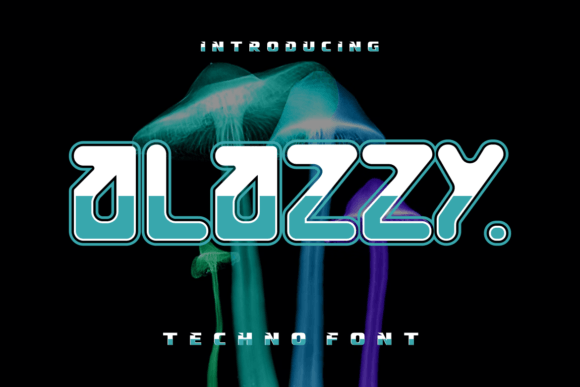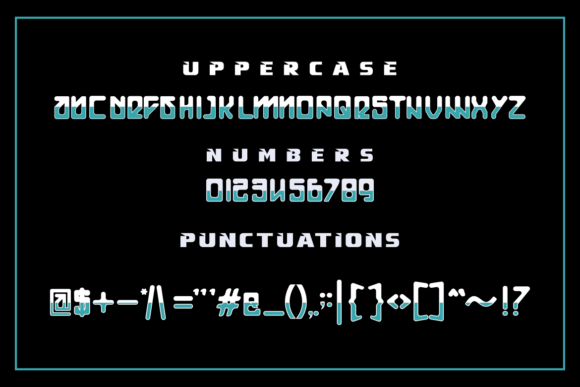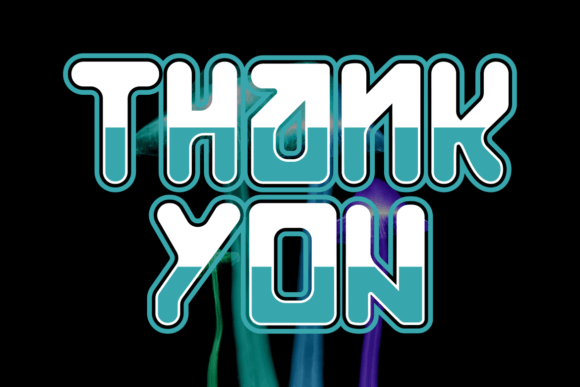
Have you ever found yourself staring at a blank page, trying to bring a design concept to life? The cursor blinks, and the words won’t come. You’re not alone. It’s a moment we’ve all experienced as creatives. But then, something magical happens – you stumble upon the perfect font. For many designers, that font is the Alazzy Font, a modern display font that exudes elegance and sophistication.
| 👤 Author | prayoga_std |
The Alazzy Font is more than just a pretty face; it’s a versatile tool that can elevate any project from ordinary to extraordinary. Whether you’re crafting a signature, designing stationery, or creating a logo, this font is sure to impress. Its value lies in its ability to add a touch of class and refinement to any design, making it a valuable addition to any designer’s toolkit.
Alazzy Font Key Features
- Font Family: Alazzy Font is a sans-serif font family designed for digital use.
- Size: The font family comes in 6 weights, ranging from Thin (100) to Black (900).
- Resolution: Designed for high-resolution displays, suitable for use at 300 DPI and above.
- Unique Characteristics: Alazzy Font features a unique geometric design with rounded edges and a clean, modern aesthetic.
Designer Review: Alazzy Font
Overall, I think the Alazzy Font has some great qualities, but it also has some limitations that may make it less appealing to certain designers.
- Clean and modern aesthetic: Alazzy Font has a sleek, minimalist design that makes it perfect for modern and tech-related projects.
- High legibility: The font is well-designed for readability, making it great for body text and other large blocks of text.
- Good for digital use: Alazzy Font is optimized for digital use, making it a great choice for websites, apps, and other digital projects.
- Not suitable for long-form text: Due to its modern aesthetic, Alazzy Font may not be the best choice for long-form text or books, where a more traditional font may be preferred.
- Limited expressiveness: The font is relatively straightforward and lacks the expressiveness of some other fonts, which may make it less interesting for creative projects.
Overall, I think the Alazzy Font is a solid choice for modern and tech-related projects, but may not be the best fit for every design project.